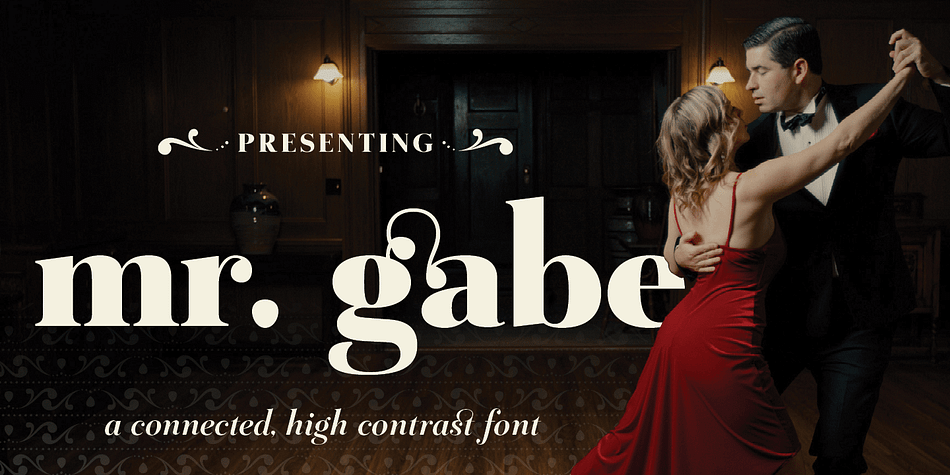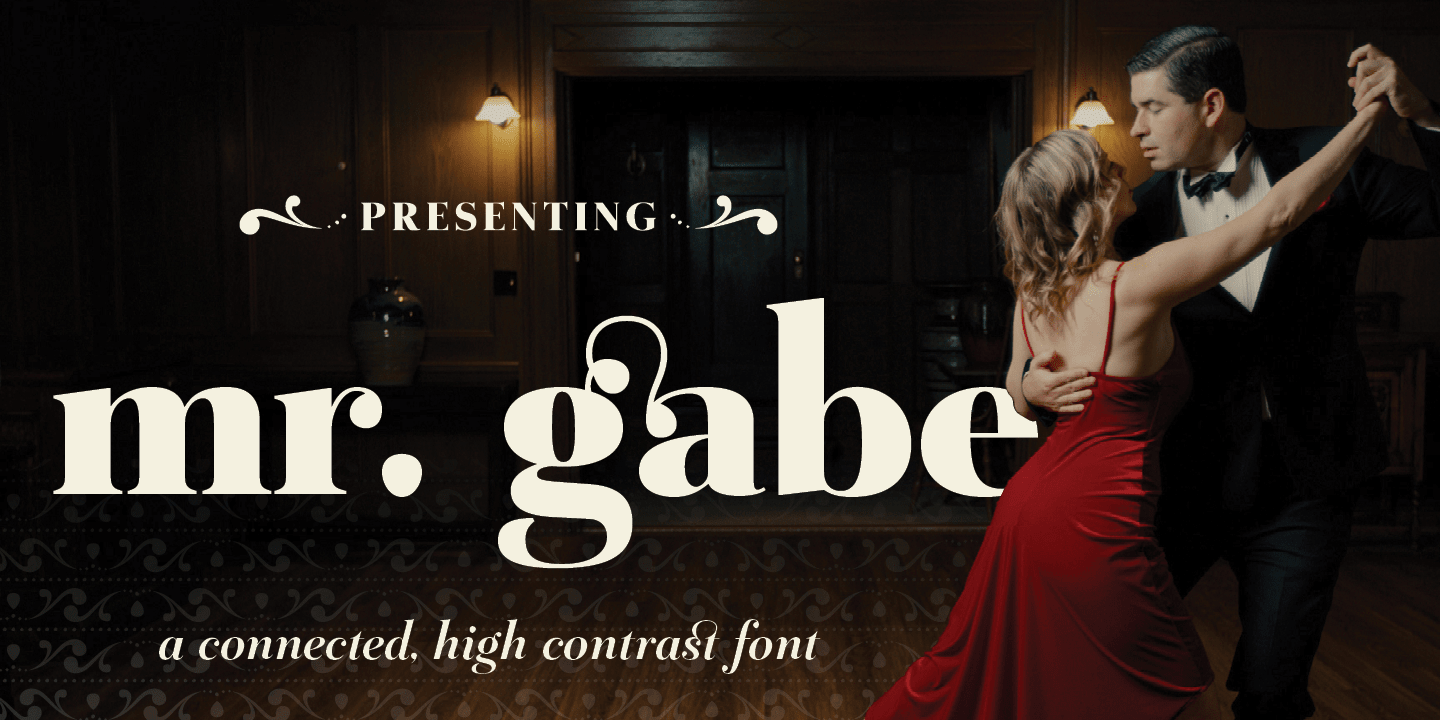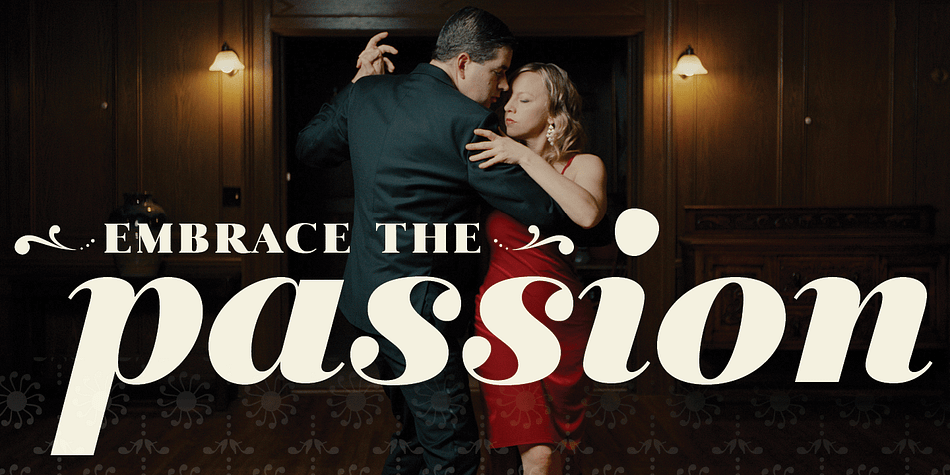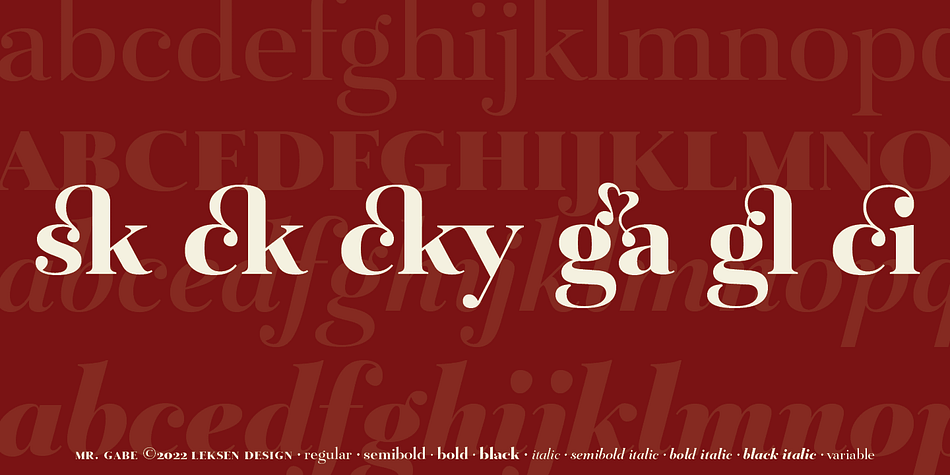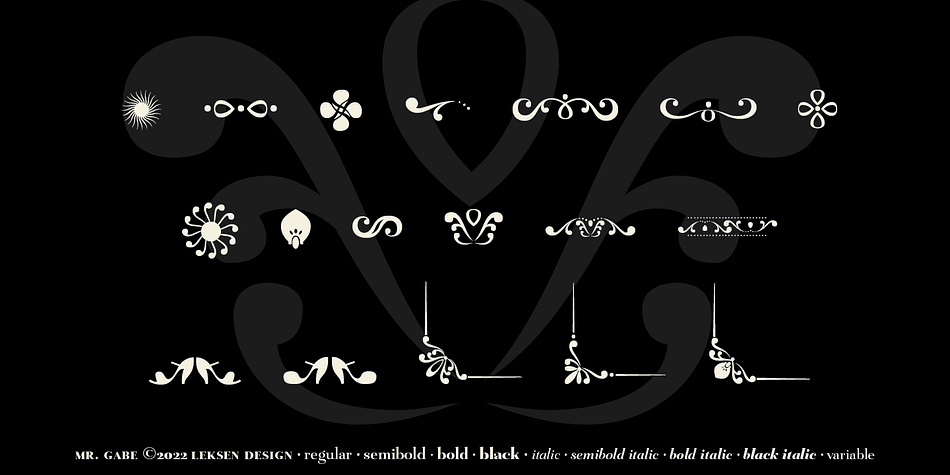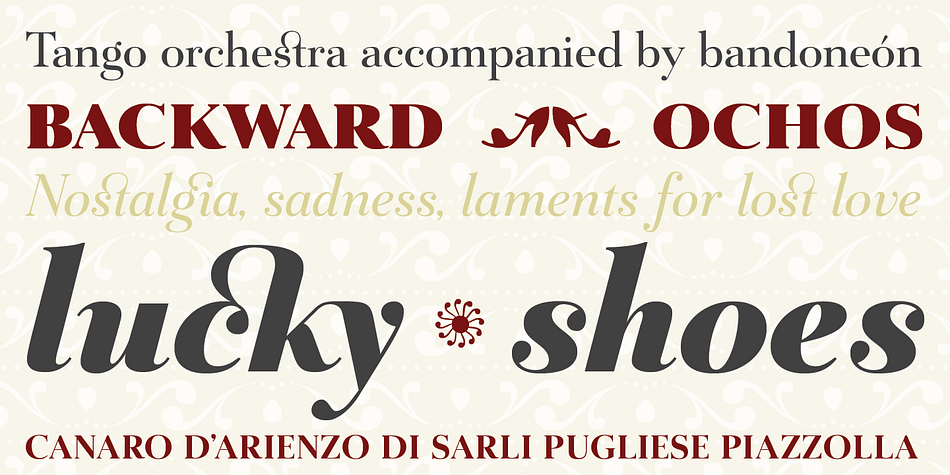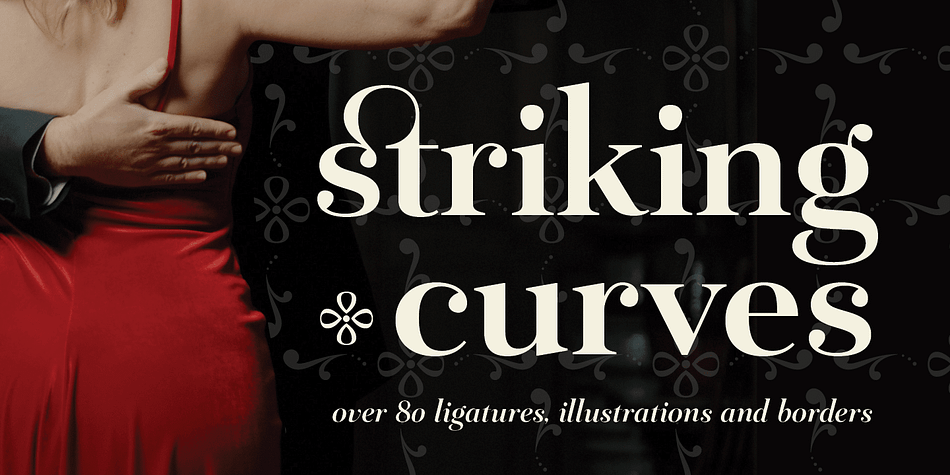
Designed by Andrea Leksen, Mr Gabe is a serif font family. This typeface has eight styles and was published by Leksen Design.
Mr Gabe is a typeface designed to dance. Not that it’s a flamboyant display face, but that it has a liveliness, especially in its heavier weights, that dances across the page. And the letters include a selection of exuberant flourishes that can be used to kick up a ruckus or make a sweeping gesture.
Mr Gabe is a high-contrast serif typeface with vertical stress, a “modern” face in traditional type terms. Even in the regular weight, the contrast between thick and thin strokes is very obvious. Designer Andrea Leksen has given many of the lowercase letters ball terminals, teardrop shapes that make Mr Gabe seem decorated even when most of its letter forms are conservative.
If you need more bells and whistles, or perhaps revolving mirror balls and dancing shoes, you can explore the font’s collection of ornaments and decorative borders.
Mr Gabe comes in four weights, from Regular to Black, with italics for each. Each font includes over 57 ligatures, 31 illustrations and borders, small caps and proportional oldstyle numerals.